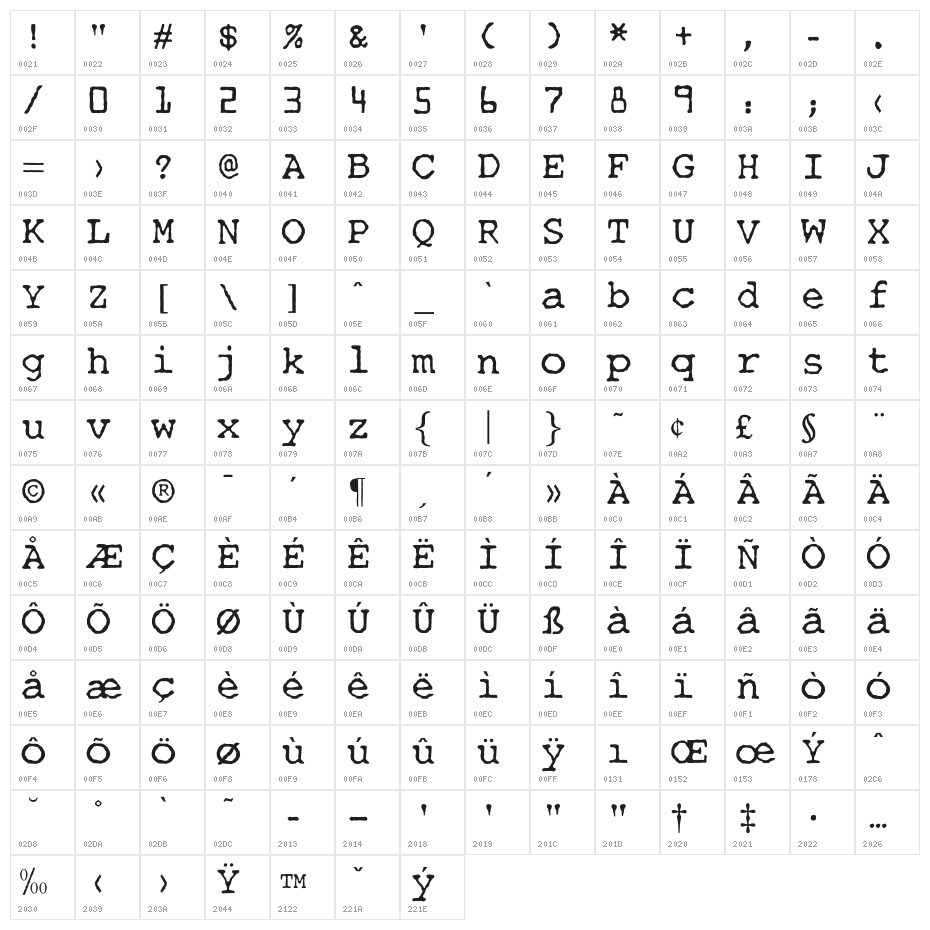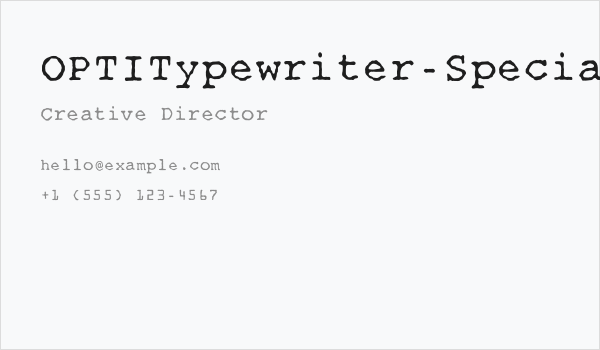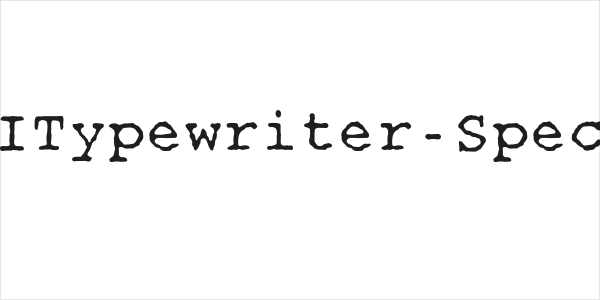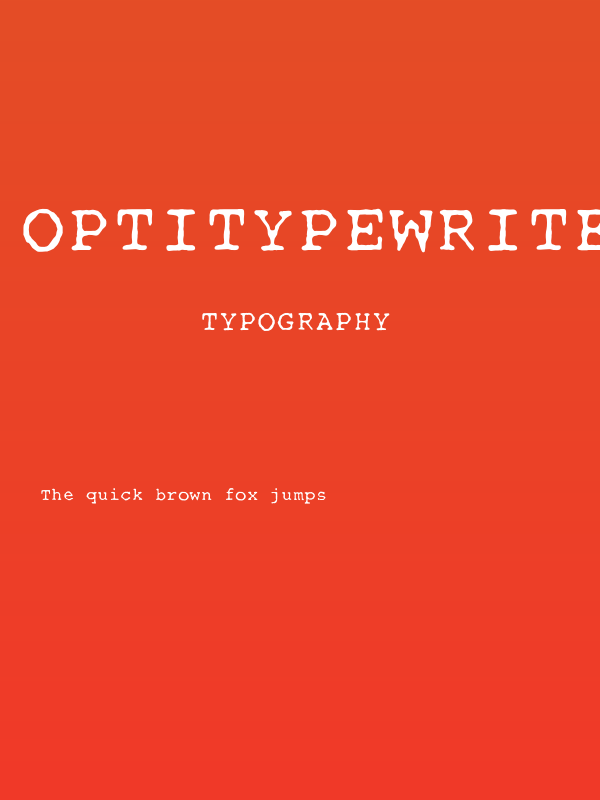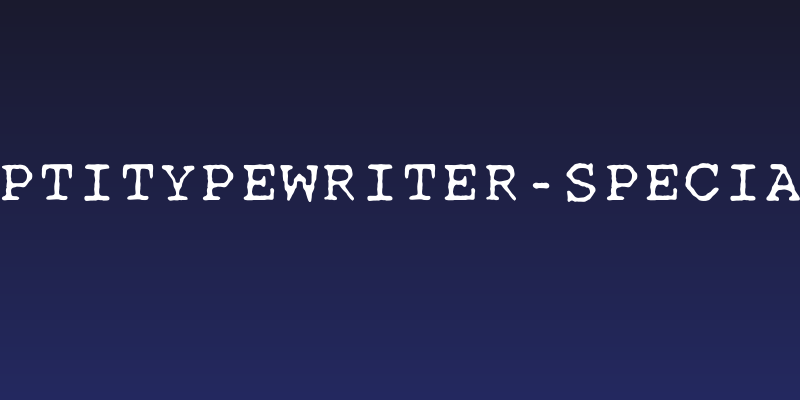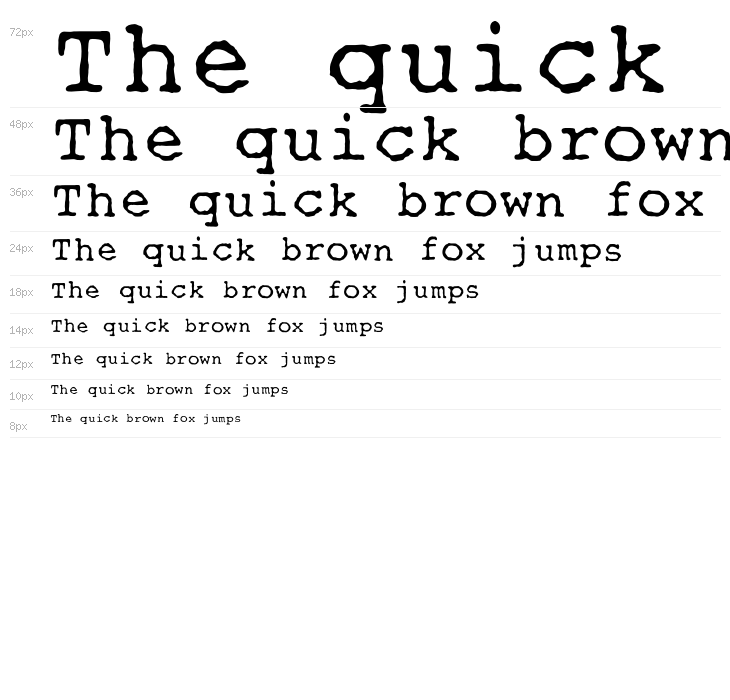
OPTITypewriter-Special Font
OPTITypewriter-Special Description
This typeface embodies the classic charm of vintage typewriters, featuring a monospaced design with slightly irregular edges that give it an authentic, worn look. Each character is distinct, with a uniform width that reflects the mechanical precision of traditional typewriter fonts. The uppercase and lowercase letters maintain a consistent height, while the numerals and special characters are crafted with the same attention to detail. The font's slightly distressed appearance adds character and a touch of nostalgia, making it ideal for projects that aim to evoke a retro or analog feel. Its readability and unique style make it suitable for both display and body text, especially in creative and artistic contexts.